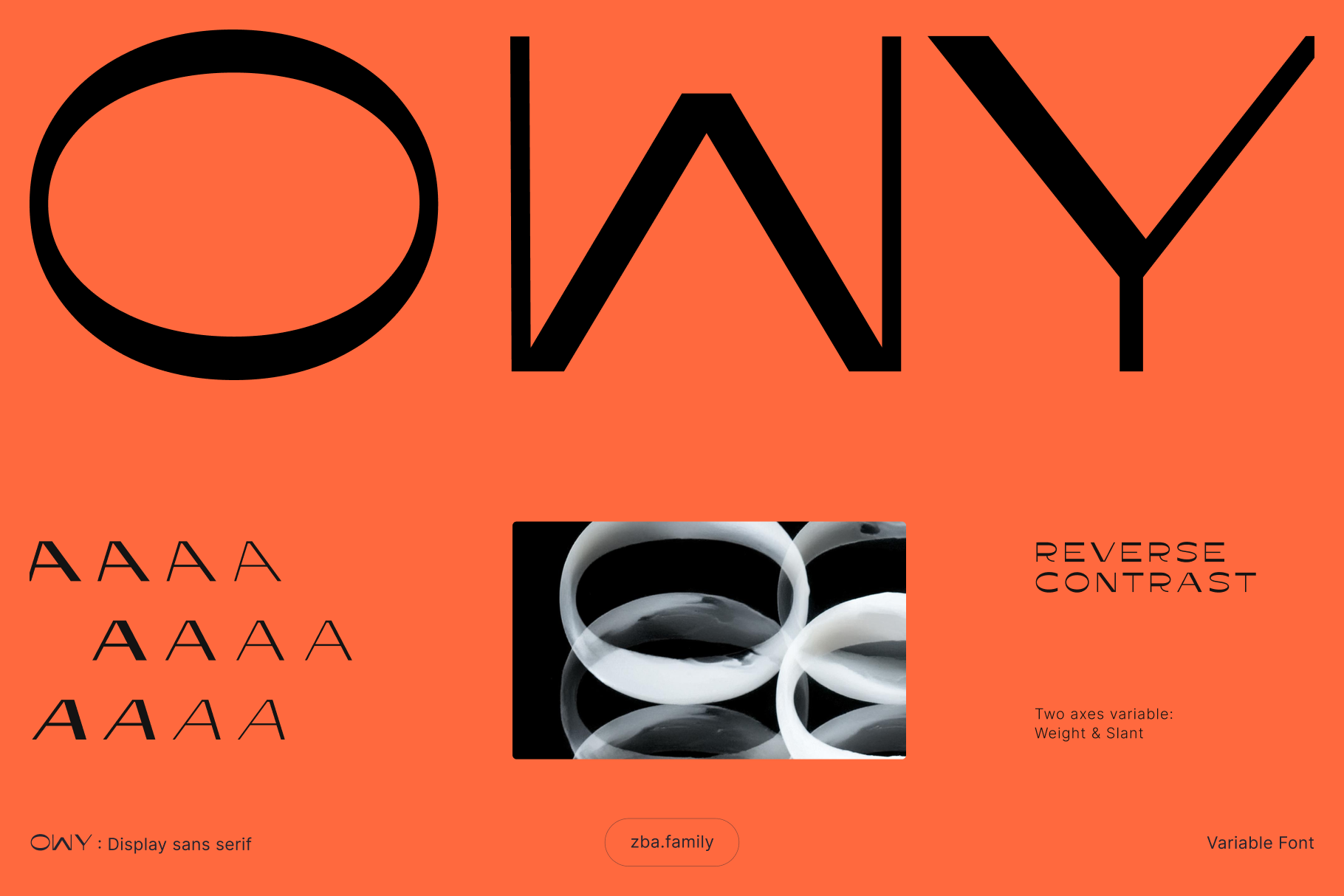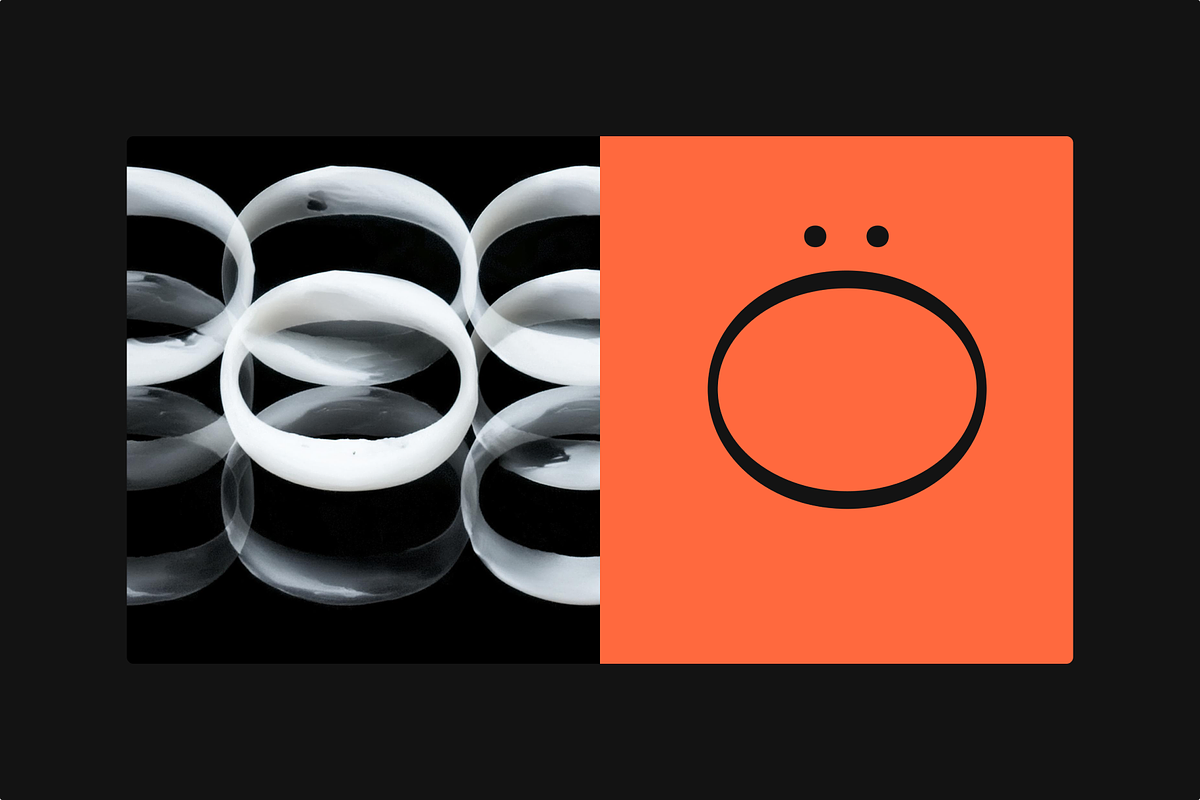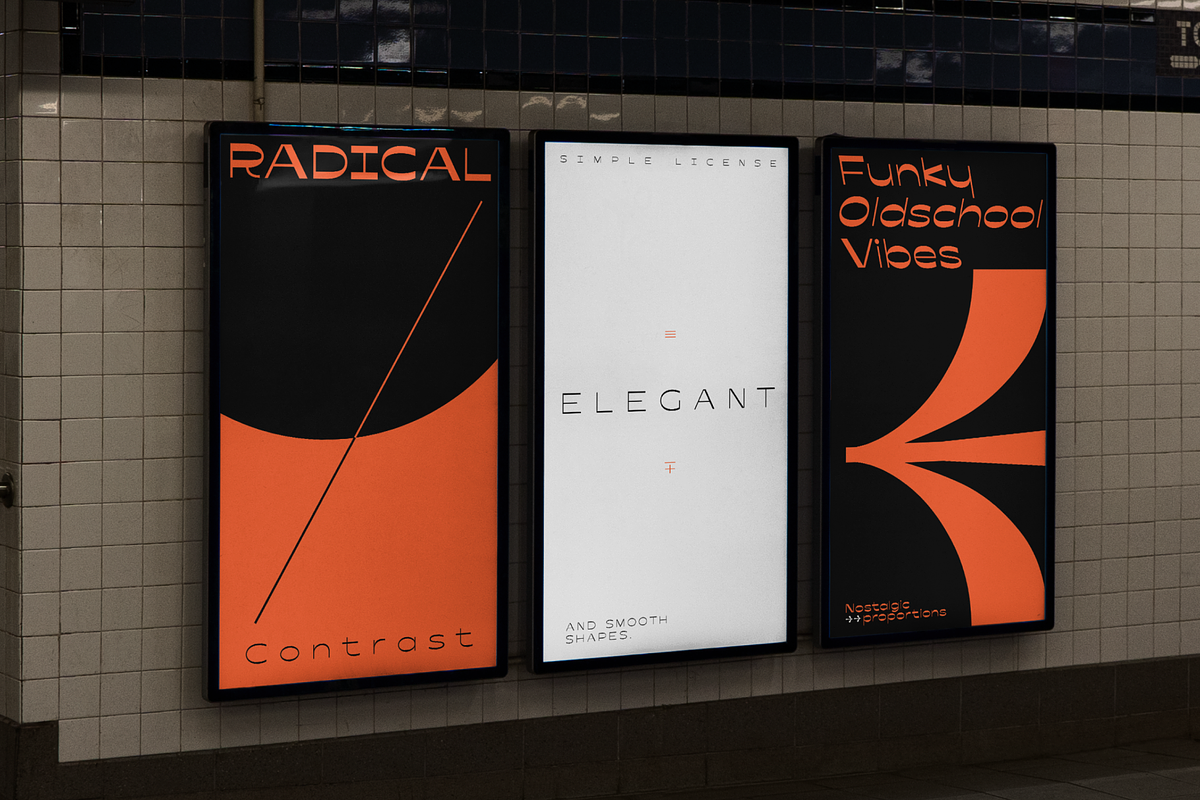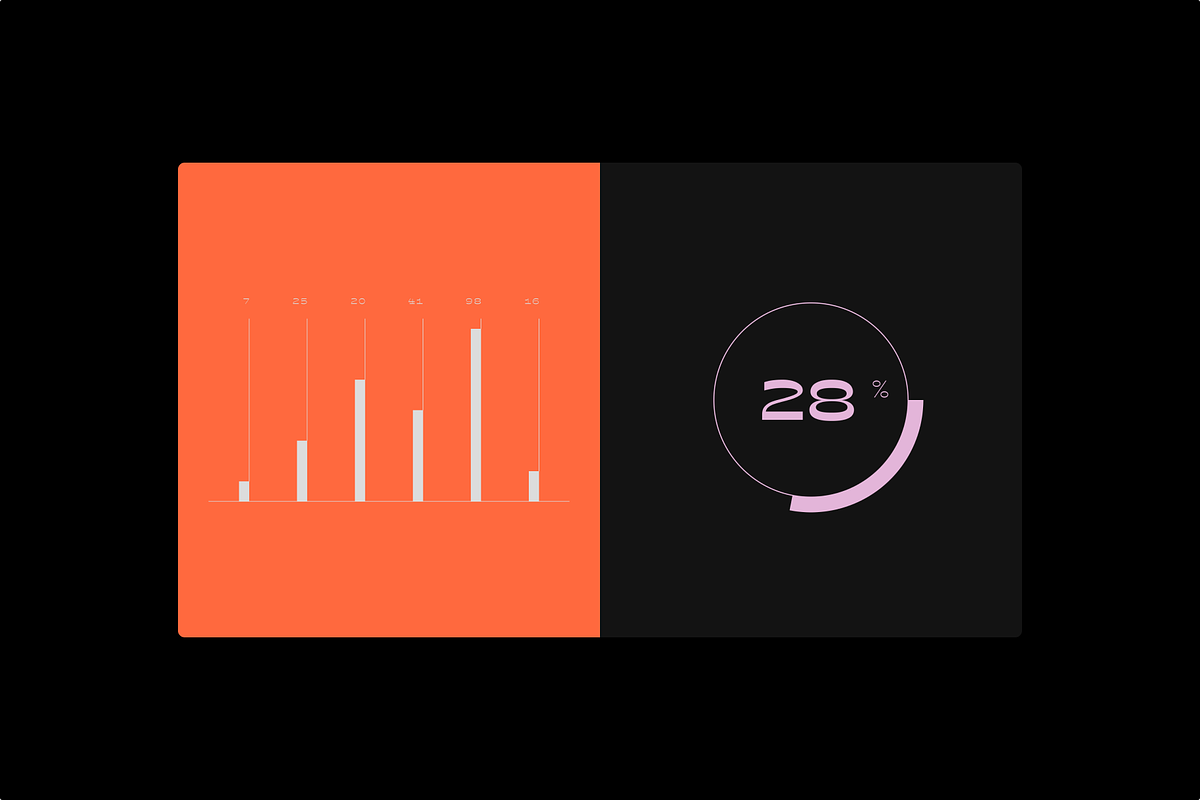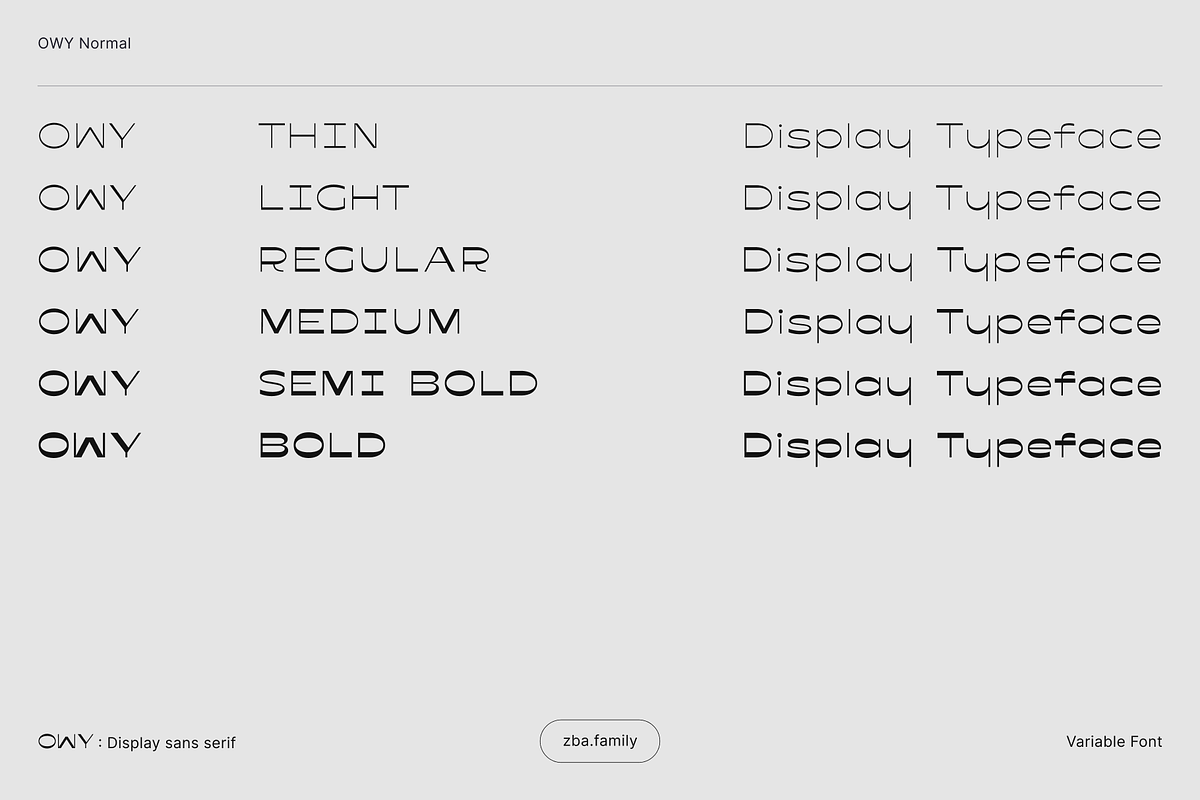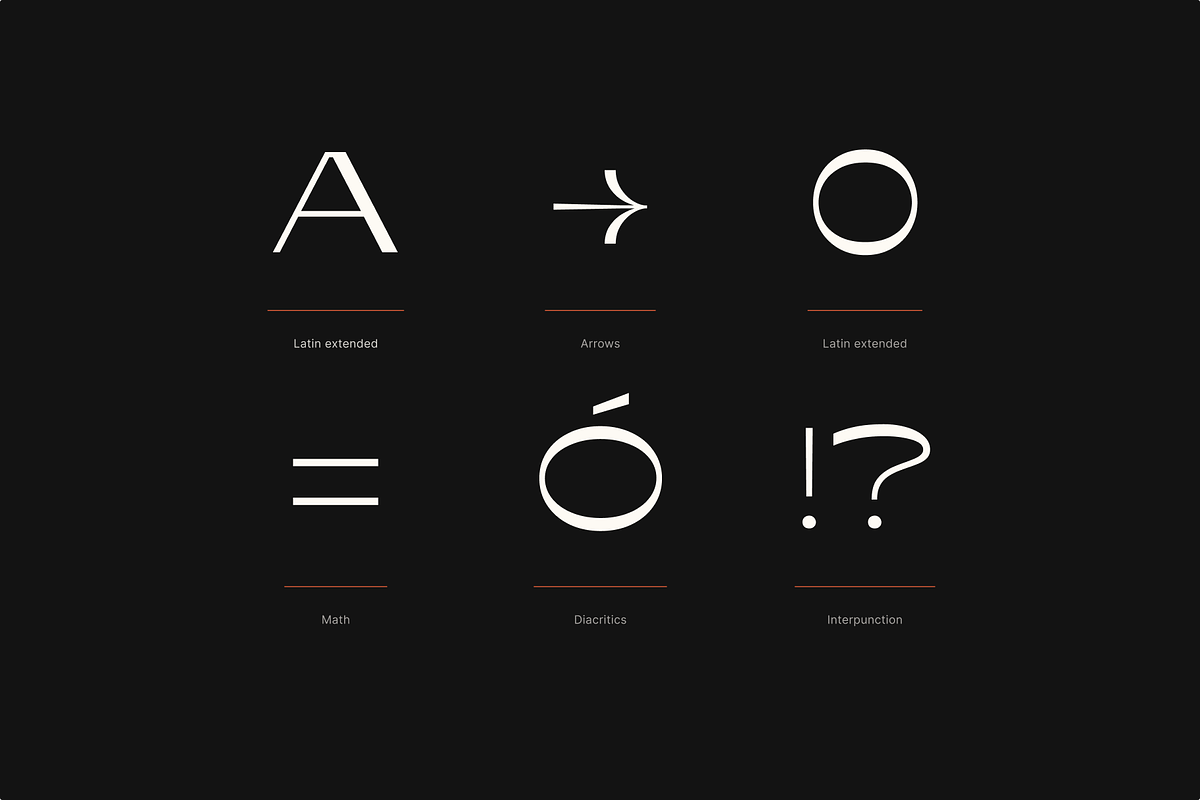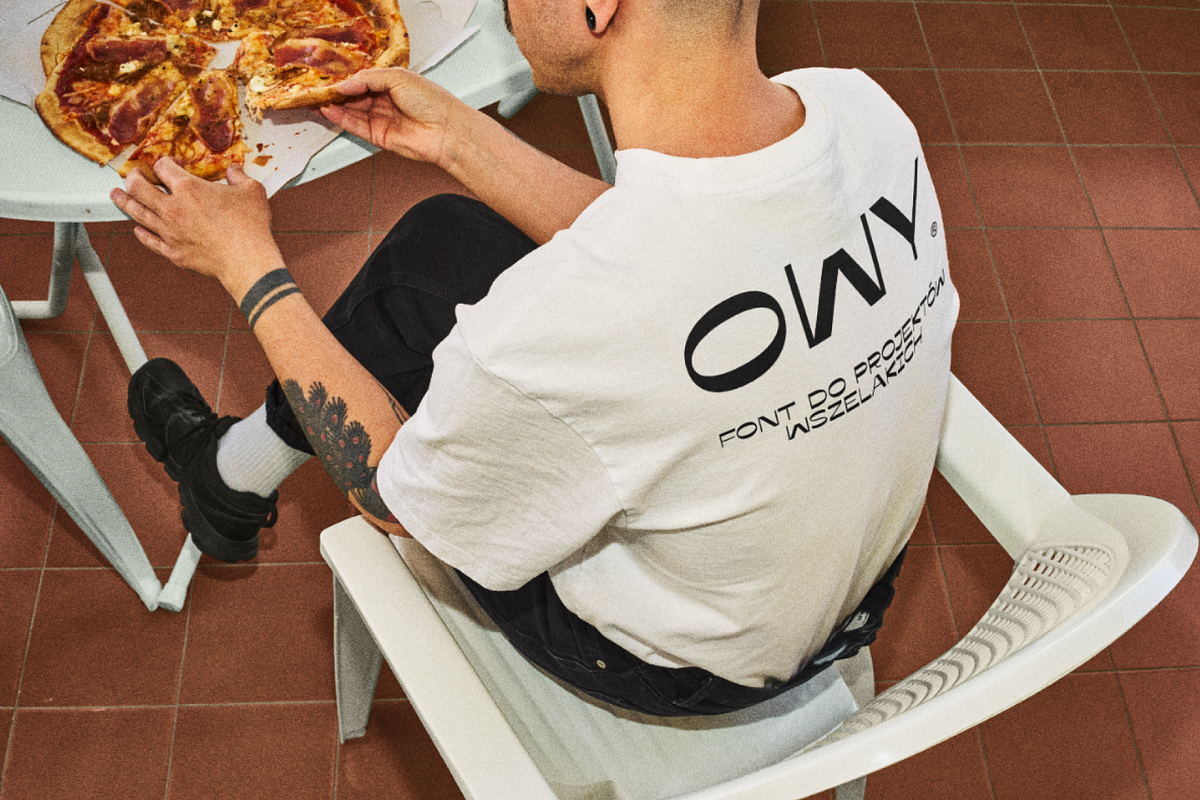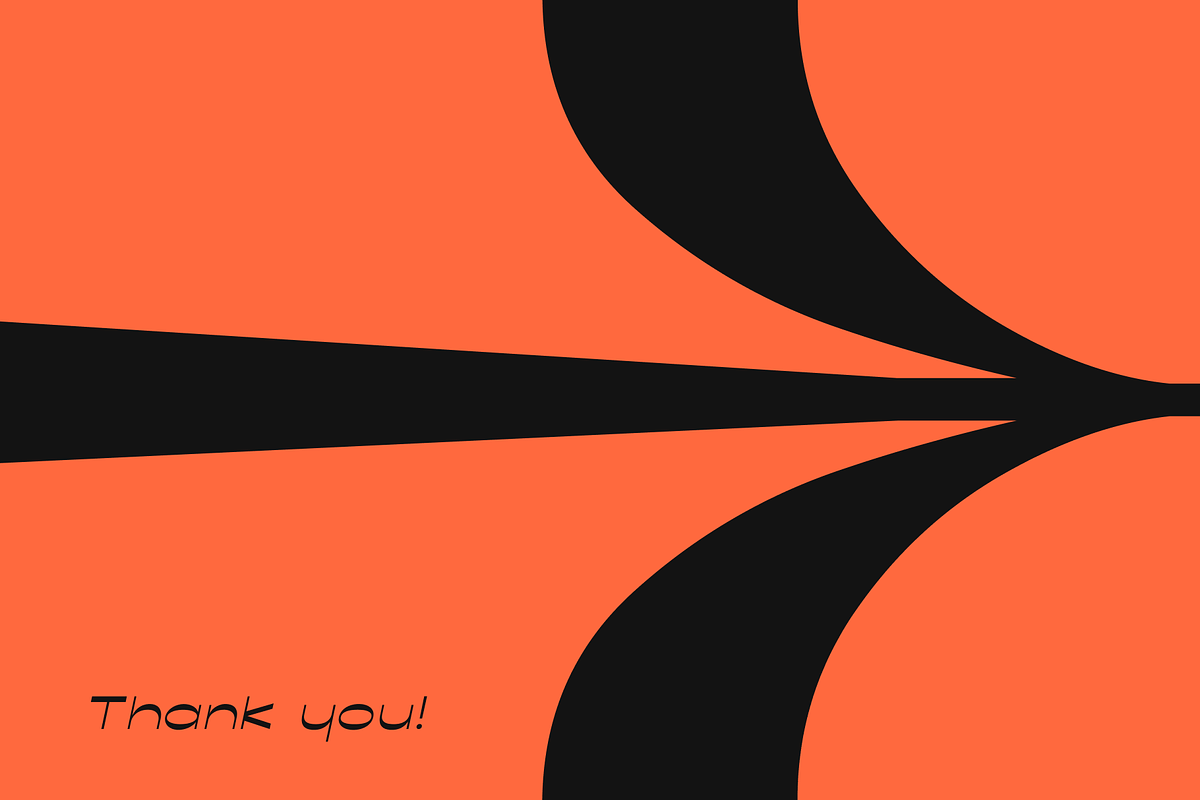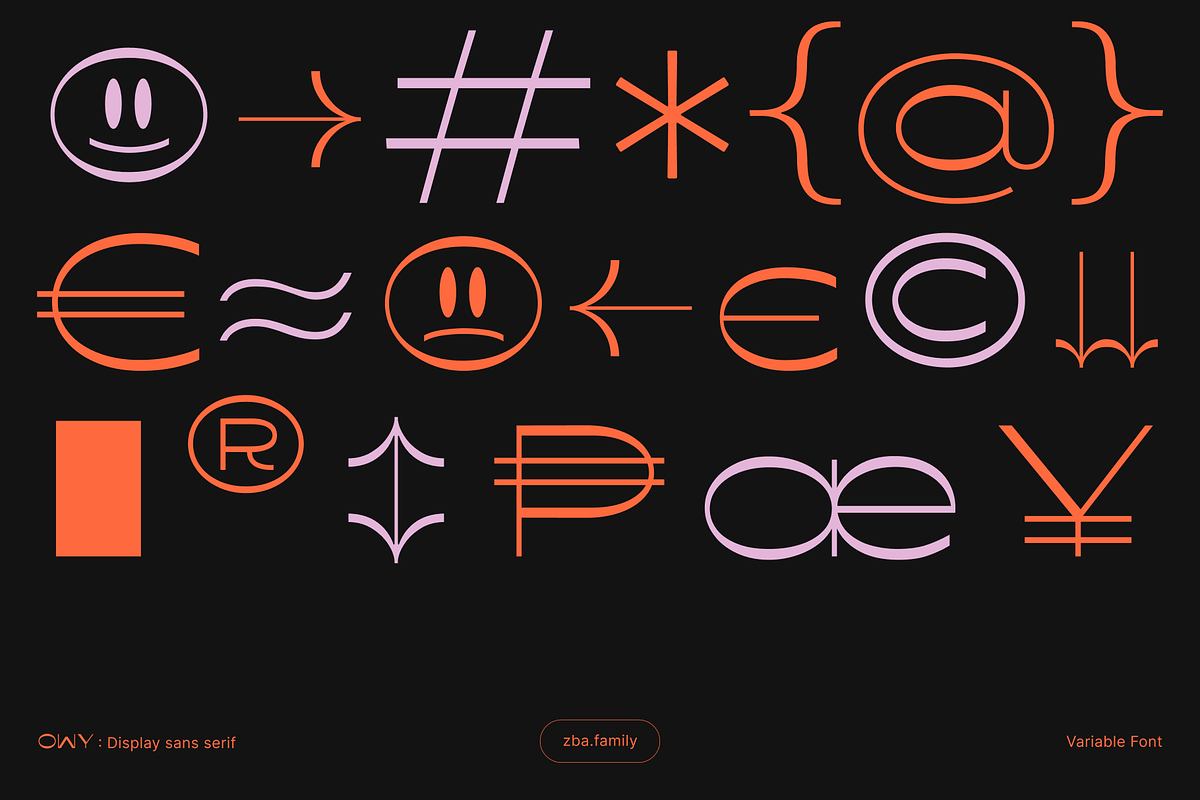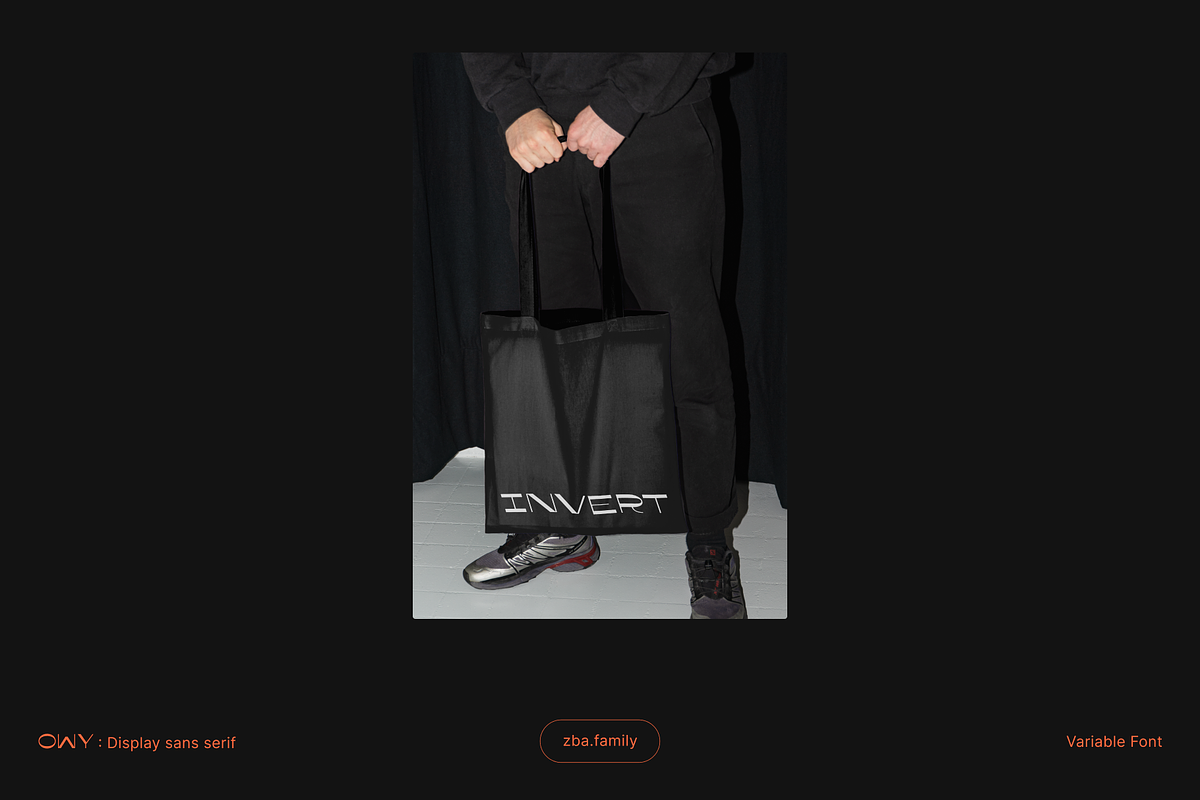
OWY Display font
Sans-serif typeface, designed to make a statement with its bold, old-school proportions and unique reversed contrast. Featuring thicker horizontal strokes and thinner vertical lines, Owy brings a retro aesthetic with a modern twist, making it perfect for eye-catching headlines, short paragraphs, and logos. Its display-centric design ensures that your typography stands out with a strong and memorable character.
Owy comes with six weight variations, ranging from light to ultrabold, offering great flexibility for different design needs. Additionally, it includes three distinct slant options: regular (upright), slant (right-leaning), and backslant (left-leaning), providing creative versatility to tailor the font’s dynamic look to various design contexts.
A major advantage of Owy is its variable font format, which gives designers even more control over weight and slant, allowing for seamless transitions between styles and making it highly adaptable for responsive design. This feature enables smoother performance and smaller file sizes, ideal for both web and print applications.
The character set of Owy includes an extensive range of Latin characters, diacritics for multilingual support, arrows, currency symbols, and numbers, ensuring it’s ready for global use in diverse projects. Whether you're creating brand identities, advertising materials, or digital interfaces, Owy's expressive and flexible nature will elevate the visual impact of your typography.
Owy is the perfect choice for designers seeking a typeface that combines retro flair with modern typographic innovation, offering standout character in any project with the added versatility of a variable font.